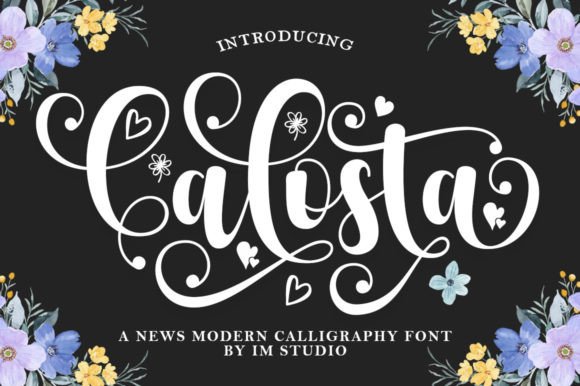
The Sweet Charm of Calosta Font: A Designer’s Delight
I’ll never forget the time I was working on a wedding invitation project, and my client asked for a font that was “sweet, delicate, and joyful.” I scoured the internet, tried out dozens of fonts, but nothing seemed to fit the bill. That was until I stumbled upon Calosta Font. ✨ This beautiful, handwritten font has been a game-changer for my design projects, and I’m excited to share its charm with you.
An Honest Review of Calosta Font
• ✨ Sweet and delicate: Calosta Font is perfect for designs that require a touch of romance and whimsy.
• ✅ Ease of use: This font is PUA encoded, making it easy to access all the glyphs and ligatures.
• 💕 Versatile: Calosta Font is ideal for wedding invitations, cards, and any other design that needs a personalized touch.
While Calosta Font is a beautiful font, there are a few things to keep in mind: ⚠️
• 🤔 Limited use cases: While Calosta Font is versatile, it may not be the best fit for designs that require a bold or dramatic look.
• ⚠️ Glyph compatibility: Make sure to check the font’s compatibility with your design software to ensure that you can access all the glyphs and ligatures.
The Story Behind Calosta Font
Calosta Font was designed with love and care by a talented type designer who wanted to create a font that would bring joy and sweetness to designs. The font’s delicate, handwritten look is inspired by traditional calligraphy and modern digital art. 💻
Font Name Calosta Font
Author IM Studio
A: PUA (Private Use Area) encoding is a way of encoding fonts that allows designers to access additional glyphs and ligatures. Calosta Font is PUA encoded, making it easy to use and access its many features.
Q: Is Calosta Font suitable for body text?
A: While Calosta Font is beautiful, it’s best suited for headlines, titles, and short paragraphs. Its delicate look may not be suitable for long blocks of body text.